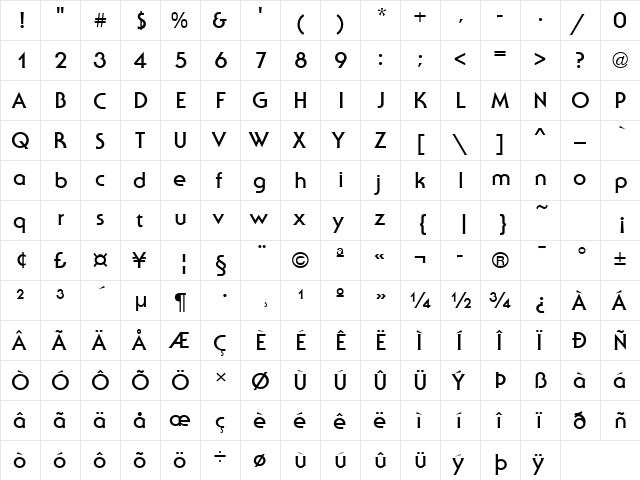
Serenade Bold Font Preview
Serenade Bold
Serenade Bold Font Details
Design Context for Serenade Typeface
Serenade is a composed and adaptable typeface that performs quietly and consistently across a wide range of design contexts. The heavy weight commands attention and anchors typographic hierarchies.
Pro Tip: Use Serenade in both headline and body roles to test its range before committing to a single application.